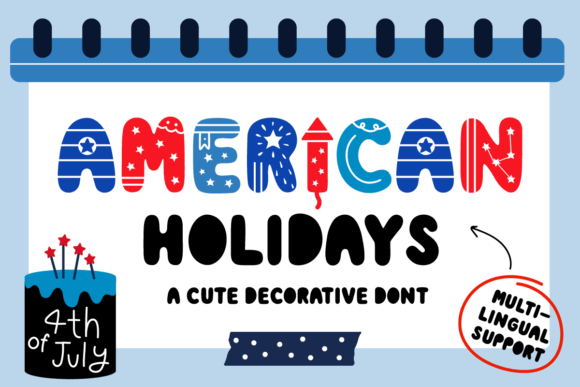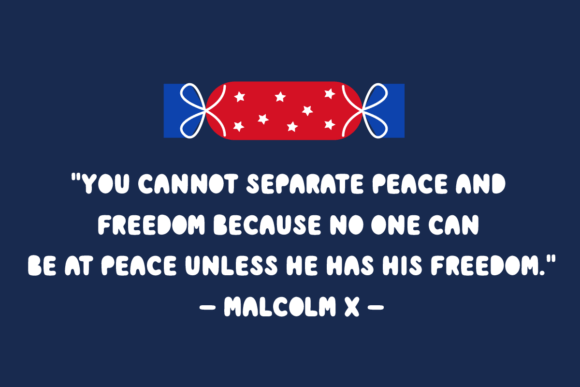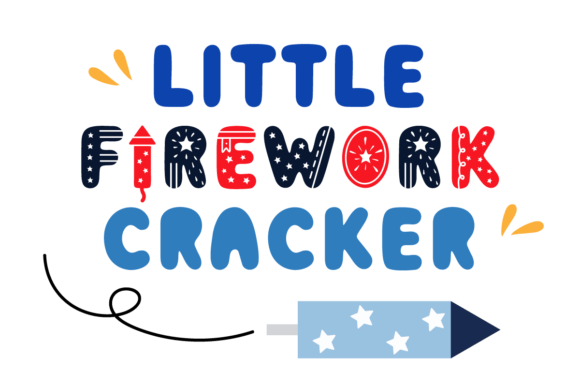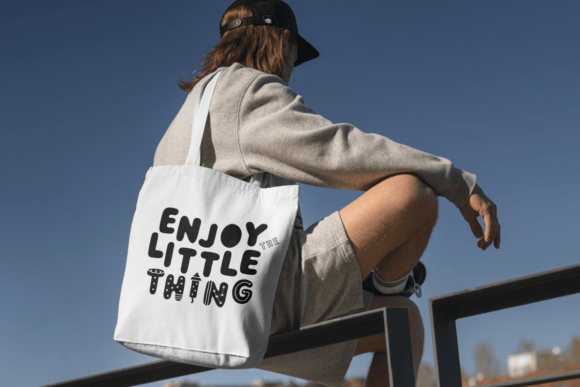
American Holidays Font
About the American Holidays Font
Unleash your creativity with American Holidays Font, a versatile font perfect for a wide range of applications. AMERICAN HOLIDAYS is a cute Decorative font with doodles detail. Perfect for projects that celebrate American history or events such as Independence Day, Veterans Day, or Memorial Day. Creating shirts, designs, invitation cards, mugs, stickers, playful quotes, creating posters, logos, greeting cards, packaging, decorating the illustration and so much more!
American Holidays Font Usage Examples
American Holidays Font Example